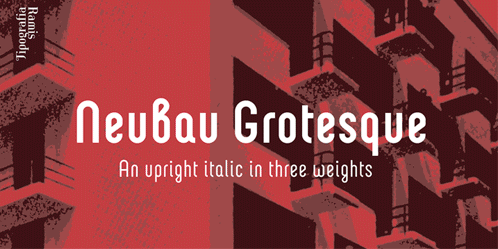
Neubau Grotesque Font Family
Neubau Grotesque is an upright italics variation of Neubau Sans and is built in three weights. The main difference of this typeface is that it presents a softer and more human look (less techno), while retaining the condensed geometric structure of its counterpart. Neubau Grotesque is recommended for use as a display font, and has been generated in a single OpenType format with Western CP1252 character set.